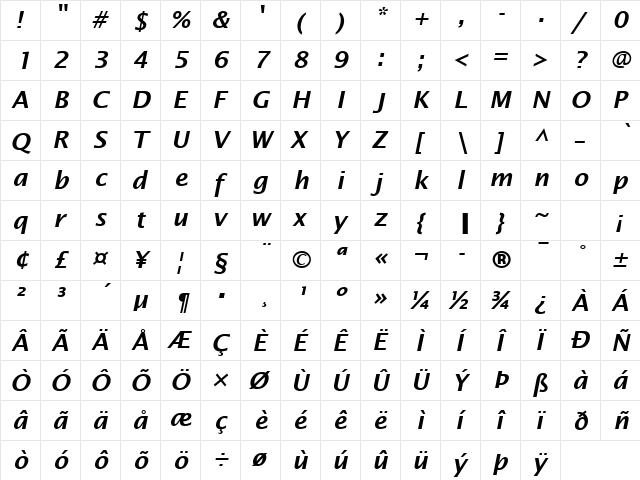
Precision Bold Italic
Design Context for Precision Typeface
Precision is a composed and adaptable typeface that performs quietly and consistently across a wide range of design contexts. The slanted form adds forward momentum and visual energy. The heavy weight commands attention and anchors typographic hierarchies.
Pro Tip: Try Precision for annotation and caption copy alongside an upright companion — the contrast in angle creates a dynamic but ordered typographic system.